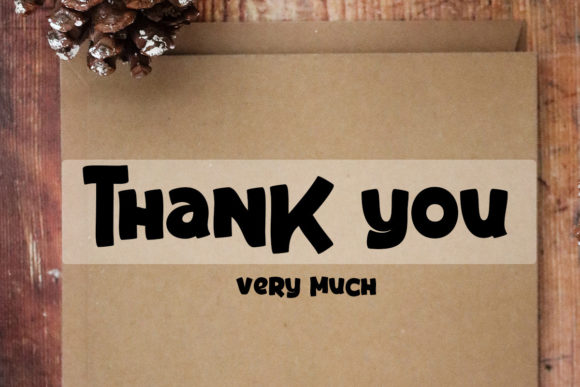
The Sweet Spot: Discovering Chocokings Font
I still remember the design project that led me to Chocokings Font. I was working on a whimsical branding campaign for a new bakery, and I needed a font that would capture the playful, yet elegant essence of their brand. As I scrolled through my font library, I stumbled upon Chocokings, and it was love at first sight! ✨ The adorable characters, the clear readability, and the unique charm – it was exactly what I needed to bring the bakery’s brand to life.
So, what makes Chocokings Font so special? Let’s dive into the good stuff! 😊
- ✅ Playful yet readable: Chocokings strikes the perfect balance between fun and legibility, making it perfect for a wide range of projects, from branding and packaging to invitations and crafts.
- ✨ PUA encoded for ease: With PUA encoding, you can access all the glyphs and swashes with ease, giving you endless creative possibilities.
- ✅ Versatile and adaptable: Whether you’re designing for digital or print, Chocokings Font adapts seamlessly to different mediums and sizes.
Now, no font is perfect, and Chocokings has a few minor quirks:
- ⚠️ Limited use in very small sizes: While Chocokings is generally clear and readable, it may not be the best choice for very small font sizes or body text.
- 🤔 Some characters may require manual kerning: Depending on your design, you might need to adjust the kerning of certain characters to achieve optimal spacing.
The Story Behind Chocokings: A Designer’s Inspiration
Chocokings Font was crafted with love by a talented designer who sought to create a typeface that would bring joy and playfulness to any project. Inspired by the whimsy of childhood and the elegance of refined typography, Chocokings was born – a font that’s equal parts sweet and sophisticated.